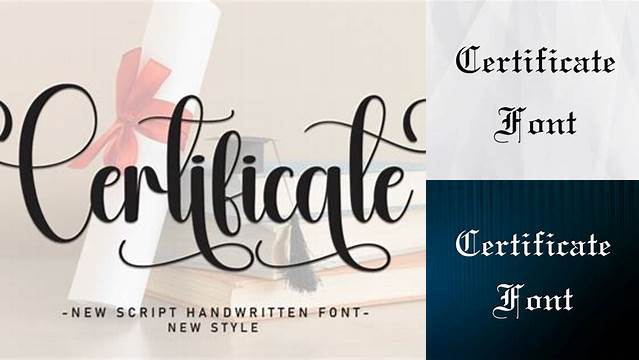
Free Certificate Script Bold Font Download Guide
Are you on the hunt for a certificate script bold font and, even better, a free download? Awesome! You've landed in the right place, guys. Certificates are super important, whether it's for recognizing someone's achievement, celebrating a milestone, or just adding a touch of professionalism to something. And the font you choose can seriously make or break the whole look. This guide is going to walk you through everything: finding the perfect certificate script bold font to download for free, how to use it, and even some cool tips and tricks to make your certificates pop. Let's dive in and make some stunning certificates!
Certificate Script Fonts: What Makes Them Special?
So, what's the deal with certificate script fonts anyway? Why are they so popular? Well, guys, think about it. Certificates often represent something special – a graduation, a completion, an award. A script font, with its elegant and flowing lines, instantly adds a touch of class and sophistication. The bold part? That's crucial. It makes the text stand out, making sure that the key information – the name, the accomplishment – is easily readable and grabs attention. Finding the right certificate script bold font can be like finding the perfect frame for a beautiful picture. It enhances the message without overshadowing it. There are tons of different styles out there. Some are more formal, with tight, precise lines. Others are more casual and friendly, with a looser, more handwritten feel. The key is to pick one that matches the tone and purpose of your certificate. Do you want it to feel official and important? Or more celebratory and fun? Your font choice sets the mood. Plus, a good font is versatile. It should look great in different sizes, whether you're printing a small certificate or a large one. It should also be easy to read, especially if you're including a lot of text. And, of course, the bold element is always important. It makes sure the name of the person you're celebrating isn't lost among other text. The ideal certificate script bold font is a blend of style, readability, and impact. You want something that looks good, is easy to read, and adds a touch of elegance. It’s all about finding the perfect balance to create a certificate that looks fantastic.
The Importance of a Certificate Script Bold Font
Using a certificate script bold font is more than just an aesthetic choice; it's a strategic one. It plays a huge role in how your certificate is perceived and, ultimately, how effective it is at conveying its message. Think about the visual impact. A well-chosen script font adds a layer of sophistication and professionalism that instantly elevates the certificate. The bold element ensures the text stands out, immediately drawing the eye to the most important details. This is particularly crucial when you want to highlight the recipient's name or the award they've received. It's about making a statement, a visual declaration of accomplishment. But the value of a certificate script bold font goes far beyond just looks. It also adds to readability. Script fonts, when chosen carefully, are often easier to read than other fonts, especially in the larger sizes typically used for certificates. And the bold style ensures that the text is clearly visible, even from a distance. A certificate that's easy to read is a certificate that gets noticed and appreciated. A well-designed certificate is something someone will want to show off, and use. Choosing the right font reflects the value you place on the achievement being recognized. It sends a message that this is something important, something worth celebrating. It shows attention to detail, and a commitment to quality. It's the difference between a certificate that's forgettable and one that becomes a cherished keepsake. The font is a critical component in the design. Don't underestimate the power of a well-chosen certificate script bold font!
Choosing the Right Script Font for Certificates
Choosing the right certificate script bold font can seem a little overwhelming at first, but don't worry, guys, it doesn't have to be! There are a few key things to keep in mind that will make the process a whole lot easier. Consider the purpose of the certificate. Is it for a formal award, like a diploma or an employee of the month award? Or is it for something more casual, like a participation certificate? The font you choose should reflect the event's tone. A more formal certificate might call for an elegant, traditional script font. Think of something classic and refined, like a calligraphy style. On the other hand, a more informal certificate might benefit from a more modern, playful script font. Think of something with a handwritten style, or a slightly quirky feel. Next up, think about readability. While script fonts are beautiful, some can be difficult to read, especially in smaller sizes. Ensure the font is easy to read, even if the text is small. You don’t want people squinting to figure out what the certificate says. Also, consider how the font looks in bold. Does it retain its elegance and legibility? A good bold font is readable and still has the same character as the regular font. Try out the font with different names and text. This will show you how the font will look. Test the font in various sizes and weights to see how it performs. This is your chance to see how it looks in the real world. Look for free downloads. There are many websites that offer free script fonts. Just remember to check the license before you use the font to make sure you can use it. Finally, look for variations. A certificate script bold font often comes with different weights, like light, regular, and bold. Choosing the right combination of these will allow you to design the certificate that fits your needs.
- 1001 Fonts: 1001 Fonts is another good place to find a certificate script bold font for free. They have a large selection of script fonts that you can use for your certificates. Be sure to read the licensing information carefully before using any fonts. They also allow you to preview your text, which is great for visualization. Be very careful about the ads and pop-ups on this website. Some fonts are free, while some require you to pay.
Checking the License
Before you download and use any font, always check the license. This is super important. The license tells you how you can use the font – whether it's for personal use only, for commercial use, or both. Some fonts are free for personal use but require you to purchase a license for commercial use. This is common. Make sure you understand the license before you start designing your certificates. You don't want to get in trouble for violating copyright. Read the license carefully. Look for any restrictions on use, and make sure the font is okay for the specific purpose you have in mind. Most font websites provide clear information about the license of each font. If in doubt, it is always best to err on the side of caution. Contact the font creator or website if you have any questions. Always check the license to be sure.